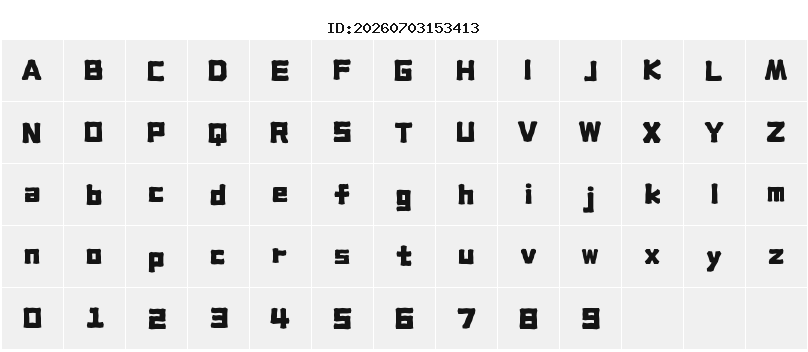
325-上首熔岩体 Preview
About 325-上首熔岩体.ttf
325-上首熔岩体.ttf is a modern, elegant sans-serif font designed for ultimate readability and visual harmony. Perfect for branding, headlines, web design, and print materials.